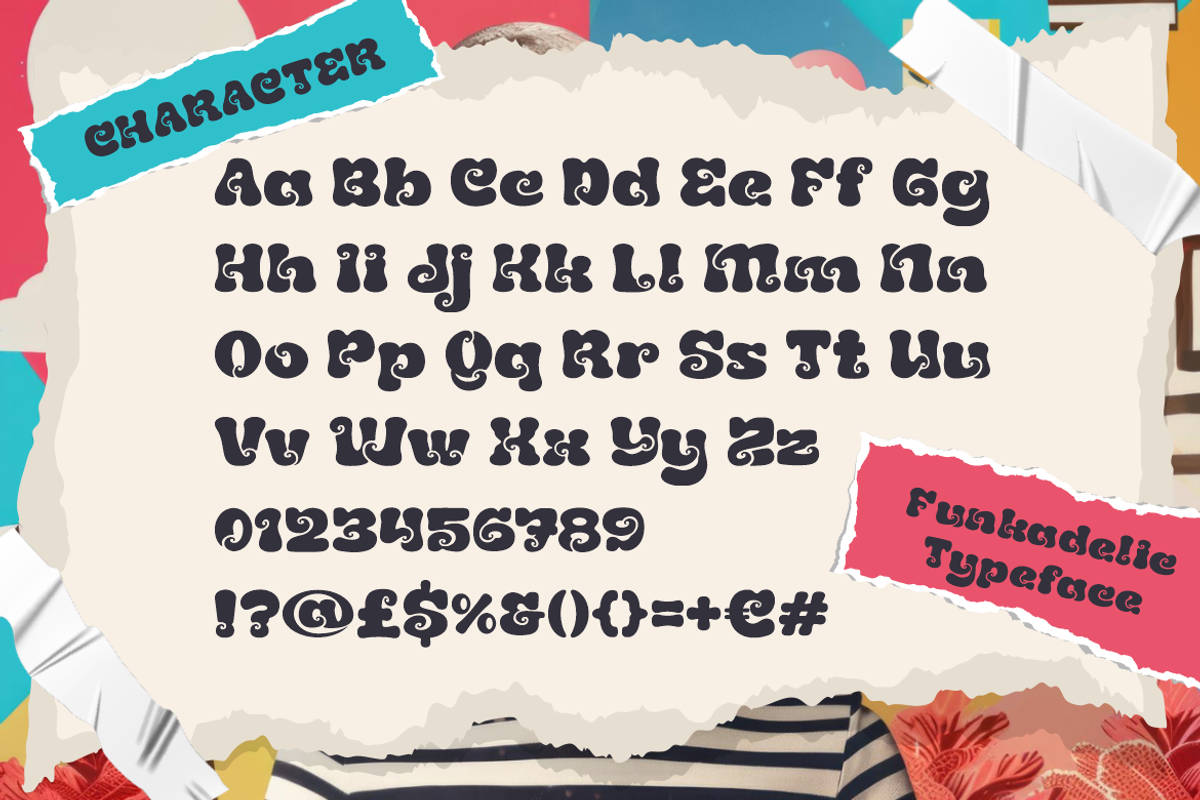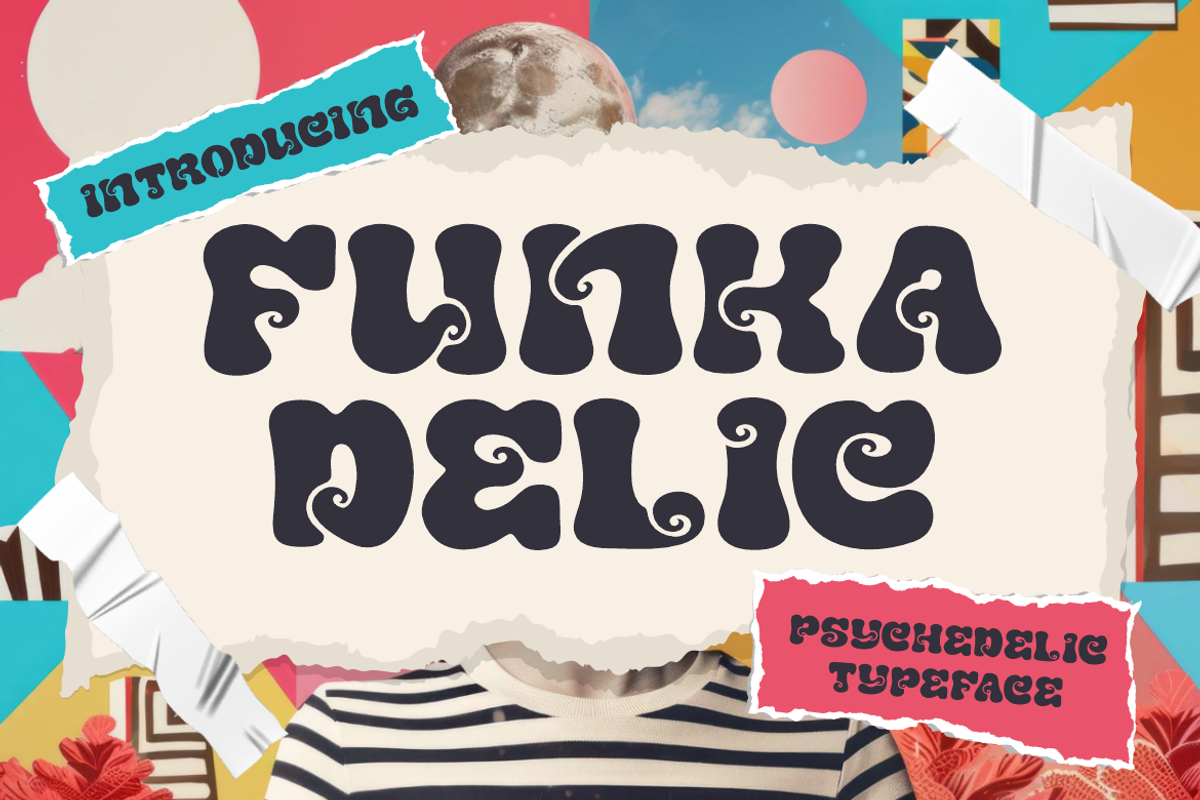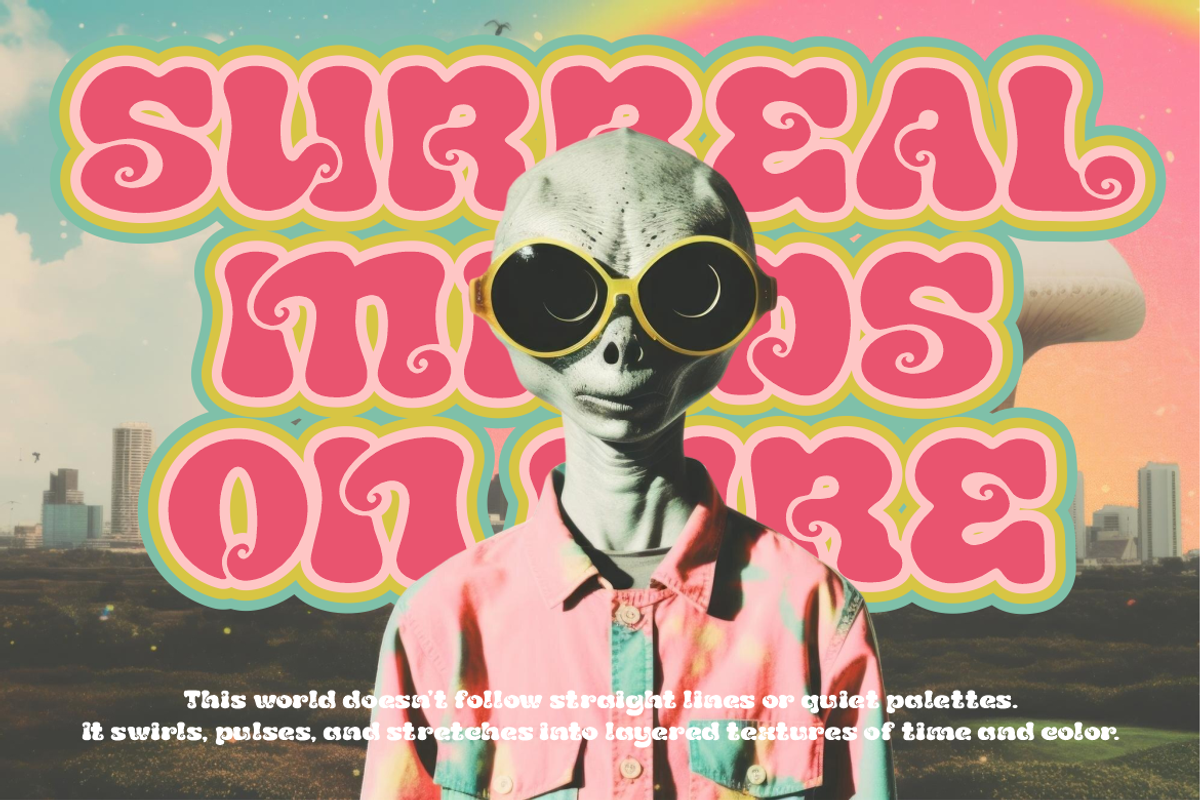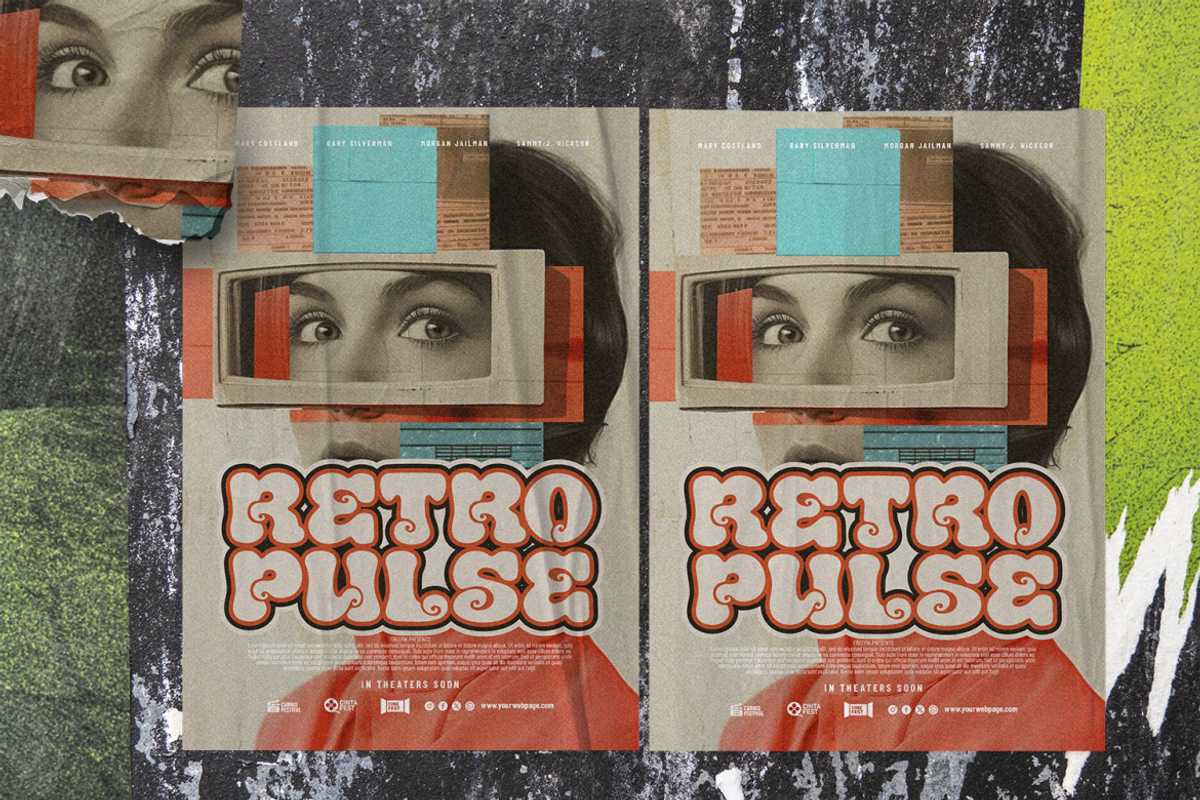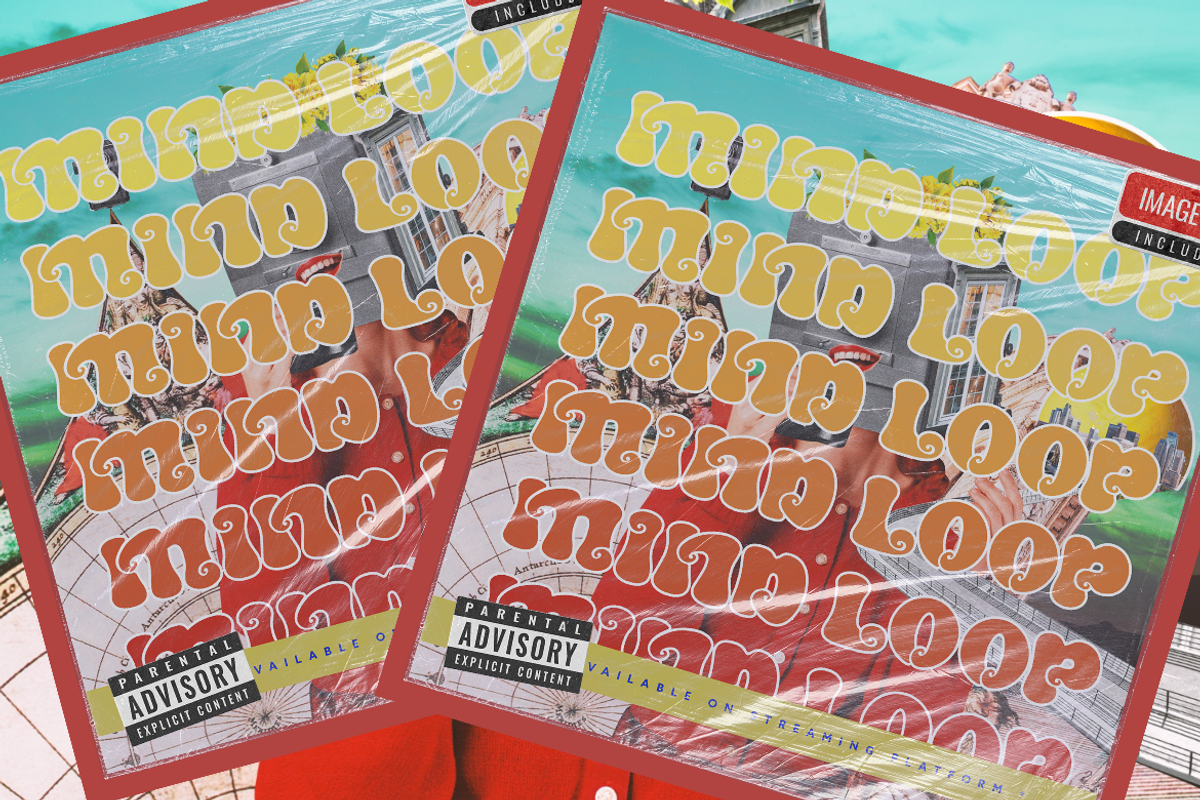
Funkadelic Psychedelic Font
Funkadelic Psychedelic Font brings the wild spirit of the 70s into modern design. Each character bursts with bold, curvy swirls, inspired by the groovy aesthetics of retro posters, album covers, and vintage magazines. The rounded, fluid letterforms combine a playful personality with a strong visual impact, making them perfect for designs that demand attention. Its psychedelic flow captures the essence of vibrant music festivals, classic hippie culture, and colorful retro art, while still feeling fresh in today’s creative projects.
This font is ideal for logos, posters, packaging, invitations, and social media graphics where you want to inject personality. Use it for retro-inspired branding, funky product packaging, movie titles, or bold headlines. With uppercase, lowercase, numerals, and punctuation, Funkadelic Psychedelic Font ensures flexibility across different layouts. Whether you’re working on a music album cover, fashion branding, or magazine spread, this typeface adds instant groove and nostalgic charm to your designs.